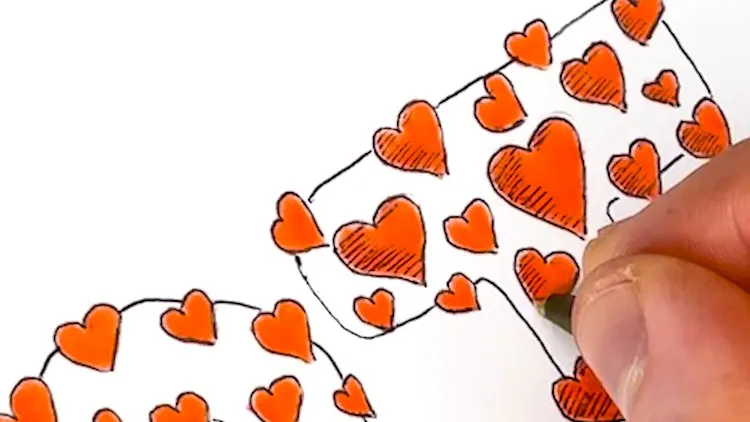
Learn to Draw Stylish Letters and Fonts for Beginners
Learn creative lettering: tattoo-style fonts, love-heart bubble writing, layout techniques, and expressive design.
- Become skilled at drawing different font styles
- Use imagination to create own unique style using ideas from course
- Become comfortable designing gifts for friends like Birthday / Anniversary cards etc.
- Enrich creative right side of of the brain
- No previous drawing experience required. Basic writing skills gives an immediate advantage.
Time to unlock the bold, stylish lettering skills you’ve always wanted.
Learn to Draw Stylish Letters and Fonts for Beginnersshows you how to create eye-catching lettering in tattoo and love-heart bubble writing style. Whether you're drawing for your own projects or crafting designs for others, this course will sharpen your ability to turn letters into expressive art.
This is your track to mastering font drawing like you always imagined — no experience needed.
You’ll go from having little to no drawing knowledge to creating beautifully stylized letters and understanding key design principles. Follow along with step-by-step techniques for building your personal font style, creating decorative alphabet sets, designing layouts, and adding shading / 3D shadowing.
Clear lessons on line control, geometric balance, bubble effects, layout, and shading
What you'll learn:
Draw stylish love-heart bubble letters and tattoo-inspired fonts
Design decorative alphabet sets using layout and embellishment techniques
Add expressive shading and contrast to boost visual impact
Create bold, clean fonts with improved line fundamentals
Develop a personal lettering style from scratch
Creatives who want to develop their own unique lettering style
Beginners looking to start with simple letters and work up to polished designs
Tattoo enthusiasts, poster makers, card designers and doodlers!
Students eager to add expressive font drawing to their skill-set
- Beginners who wish to explore their creativity, having an solid foundation in simple writing skills.